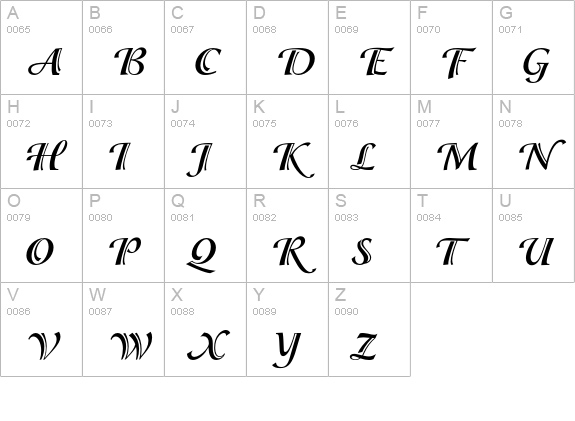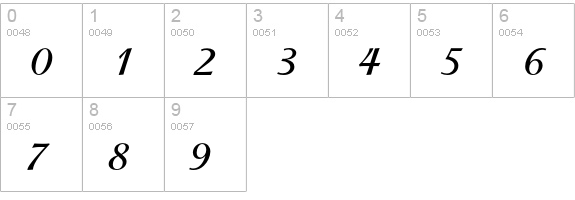
IsadoraICG-Bold Font Details
IsadoraICG-Bold is a strong, high-contrast variant in the IsadoraICG typeface family \xE2\x80\x94 well suited to headlines, attention-grabbing titles, and strong calls-to-action.
IsadoraICG-Bold font is a striking and bold typeface that exudes confidence and elegance. With its clean lines and strong letterforms, this font is perfect for making a bold statement in any design project. This font is not only visually appealing but also versatile, making it suitable for various purposes such as headlines, logos, posters, and branding materials. Its bold weight adds a sense of power and authority to any text, ensuring that your message stands out and commands attention. One of the best things about IsadoraICG-Bold font is that it is free. Yes, you read that right! This incredible font is freely available to download at FontsMarket.com. With just a few clicks, you can have access to this stunning typeface and start incorporating it into your designs. Whether you are a professional designer or someone passionate about typography, IsadoraICG-Bold font is a must-have addition to your font collection. Its timeless and versatile design ensures that it will remain a staple in your creative projects for years to come. So why wait? Head over to FontsMarket.com and download IsadoraICG-Bold font today. Unleash your creativity and elevate your designs with this amazing font that is sure to make a lasting impression.